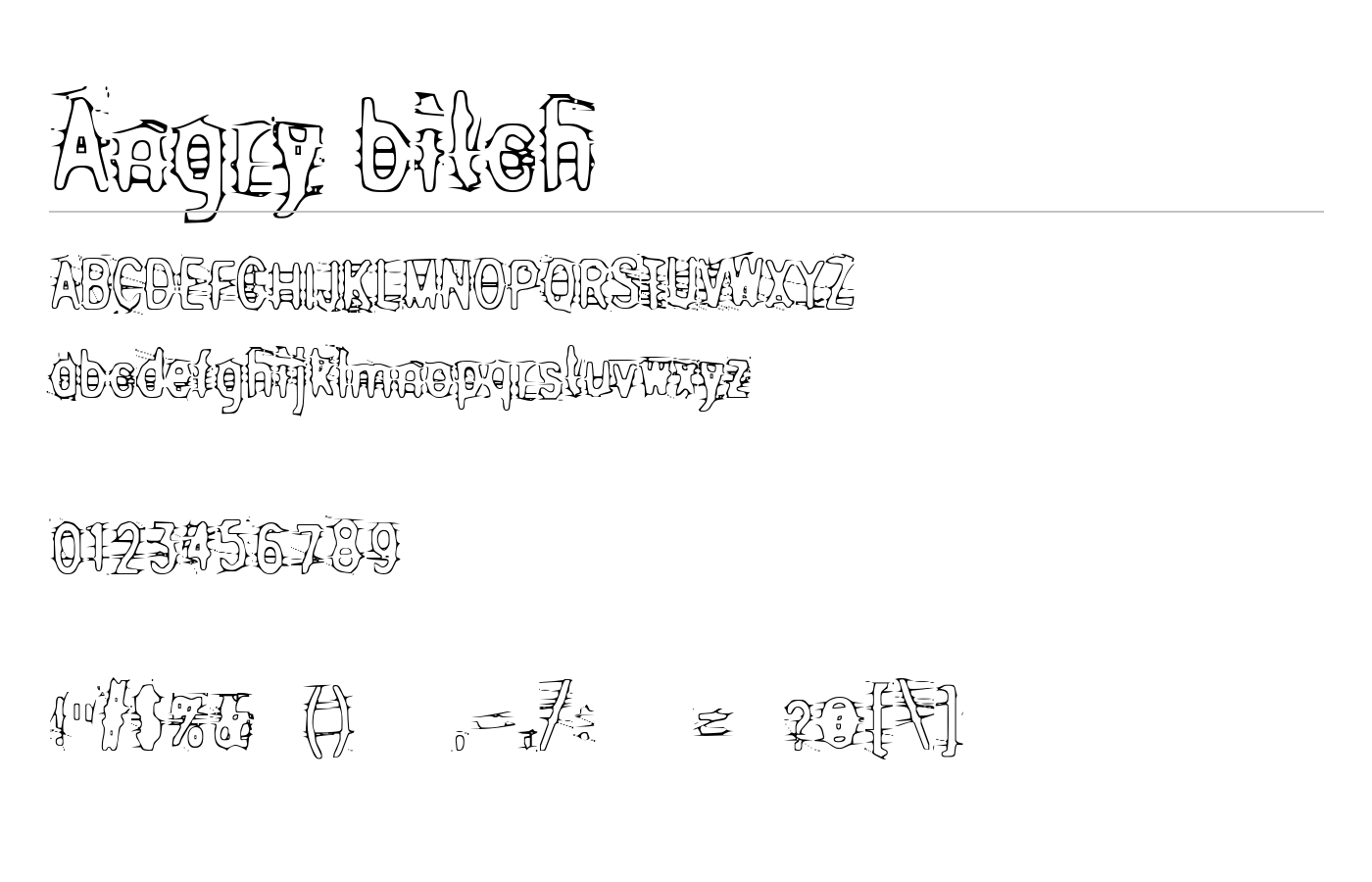
Angry Bitch is a highly stylized, distressed serif font with a rough, edgy appearance that radiates a rebellious and intense personality. Its uneven, jagged strokes and irregular shapes create a chaotic yet bold aesthetic, making it ideal for designs that aim to stand out with a raw, expressive vibe. This font works best in creative projects like posters, album covers, and branding that seek to convey attitude, grunge, or alternative culture.
Angry bitch Font
About Angry bitch Font